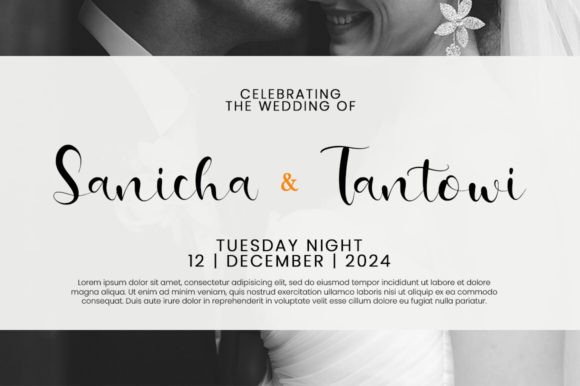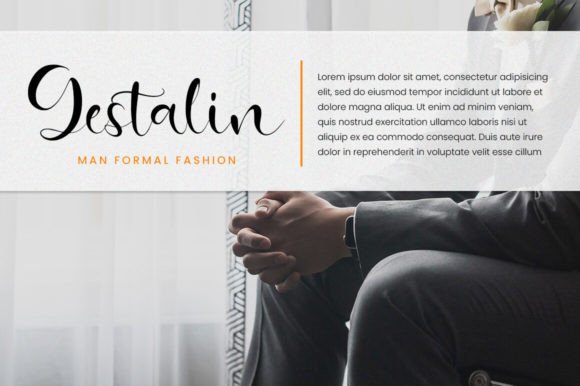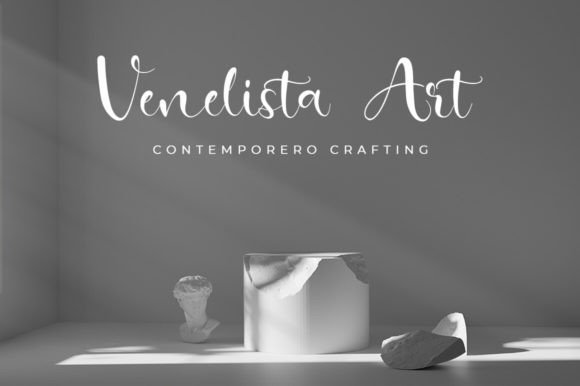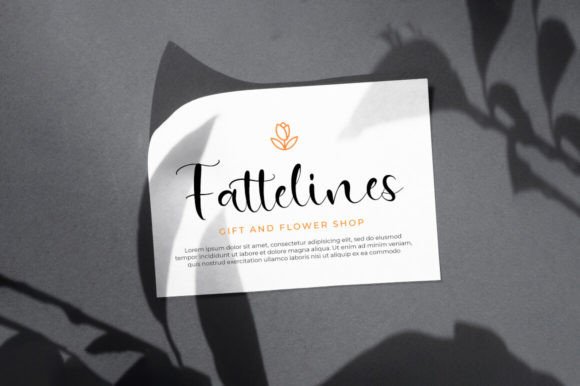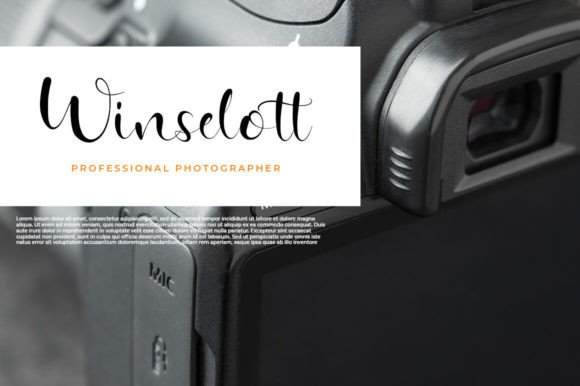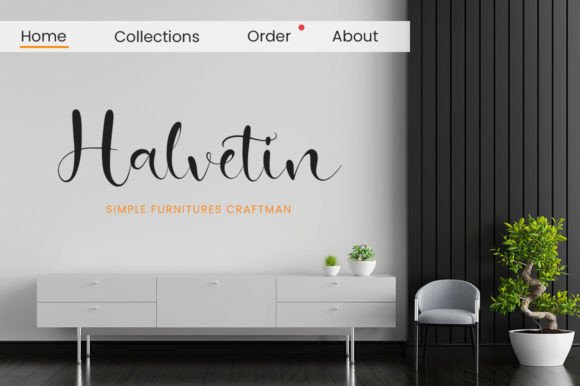
The Perfect Script for Your Creative Vision
Have you ever stared at a blank canvas, wondering how to bring your design to life? The blank page stares back, taunting you with its emptiness. But then, like a whisper in your ear, the perfect font comes to mind – one that captures the essence of your creativity and makes your vision shine.
Enter the Bestovine Script, a gorgeous typographic font that’s perfect for designers looking to add a touch of elegance and personality to their projects. Whether you’re working on logos and branding, invitations, or social media posts, this font is sure to bring your design to life. With its versatility and beautiful handwriting style, the Bestovine Font is a valuable asset for any designer looking to take their work to the next level.
Bestovine Font Key Features
- Unique Characteristics: Bestovine Font features a unique blend of modern and vintage elements, with a mix of geometric and organic shapes
Designer Review: Bestovine Font
Overall, I was excited to dive into the Bestovine Font, but my experience was a mixed bag. ✨ Here are the things that worked well:
- Unique aesthetic: Bestovine Font has a distinct, hand-drawn feel that sets it apart from more traditional font styles.
- Good legibility: The font is clear and easy to read, even at smaller sizes.
- Extensive character set: Bestovine Font includes a wide range of characters, including international symbols and punctuation.
However, I also encountered some limitations that prevent me from fully recommending the font. ⚠️ These include:
- Limited language support: While Bestovine Font includes a good selection of characters, it still falls short in terms of full language support, particularly for languages that require complex scripts.
- Not ideal for large blocks of text: The font’s unique style can become overwhelming when used extensively, making it less suitable for long passages of text.
Overall, Bestovine Font is a solid choice for designers looking to add some personality to their projects. While it excels in certain areas, its limitations may make it less suitable for more extensive or complex projects.
Tips: Use Bestovine Font for titles and headings to add a touch of elegance. Experiment with different font sizes and colors to achieve the desired visual effect.
Tips: Use Bestovine Font for creative projects, such as logos, posters, or graphics. Experiment with layer blending modes and effects to add depth and interest.
Tips: Use Bestovine Font for presentations and documents to add a touch of sophistication. Experiment with font combinations and styles to create a visually appealing design.
Bestovine Font is suitable for a variety of applications, including:
- Posters and graphics
- Presentations and documents
Remember to use Bestovine Font in conjunction with other design elements to create a cohesive and visually appealing
Alternatives to Bestovine Font for Designers
Great Vibes is a beautiful, elegant script font that is perfect for creating a sense of sophistication and refinement. It is ideal for use in wedding invitations, branding materials, and other high-end designs. Compared to Bestovine Font, Great Vibes has a more refined and polished look, making it a great choice for designers who want to add a touch of luxury to their designs.
Dancing Script is a fun and playful script font that is perfect for creating a sense of energy and movement. It is ideal for use in youth-oriented designs, such as posters, flyers, and social media graphics. Compared to Bestovine Font, Dancing Script has a more casual and relaxed feel, making it a great choice for designers who want to add a touch of whimsy to their designs.
Carolyna Pro is a modern and stylish script font that is perfect for creating a sense of sophistication and elegance. It is ideal for use in high-end branding materials, packaging designs, and other luxury products. Compared to Bestovine Font, Carolyna Pro has a more modern and sleek look, making it a great choice for designers who want to add a touch of sophistication to their designs.